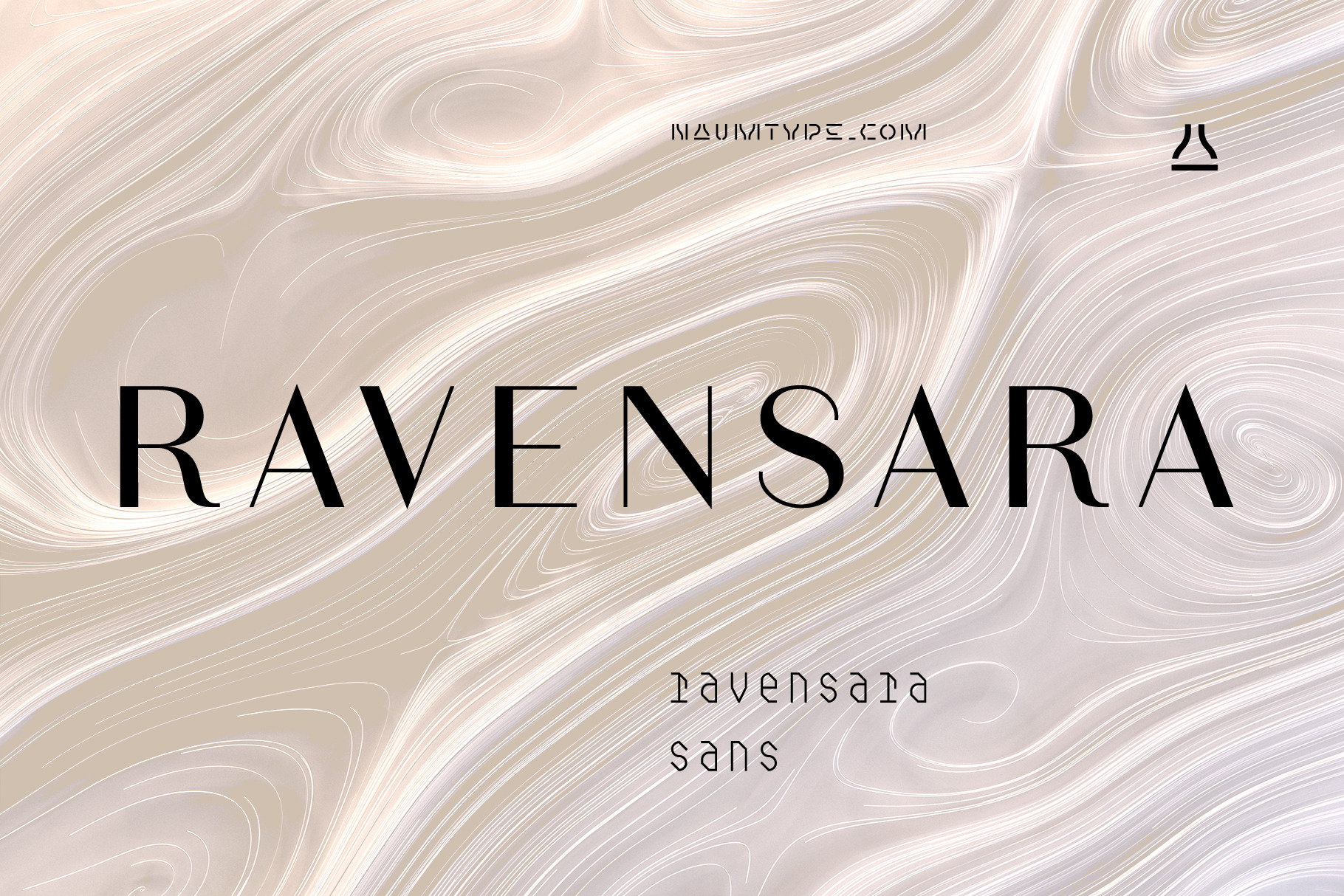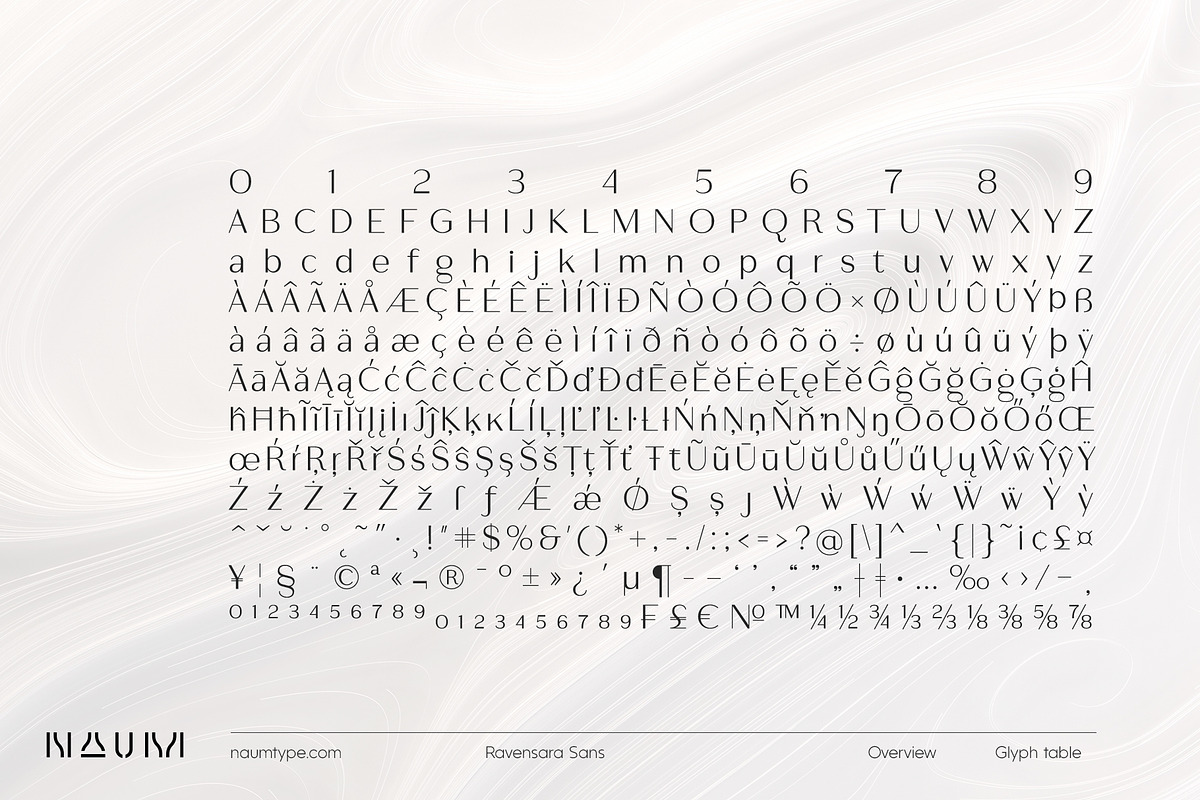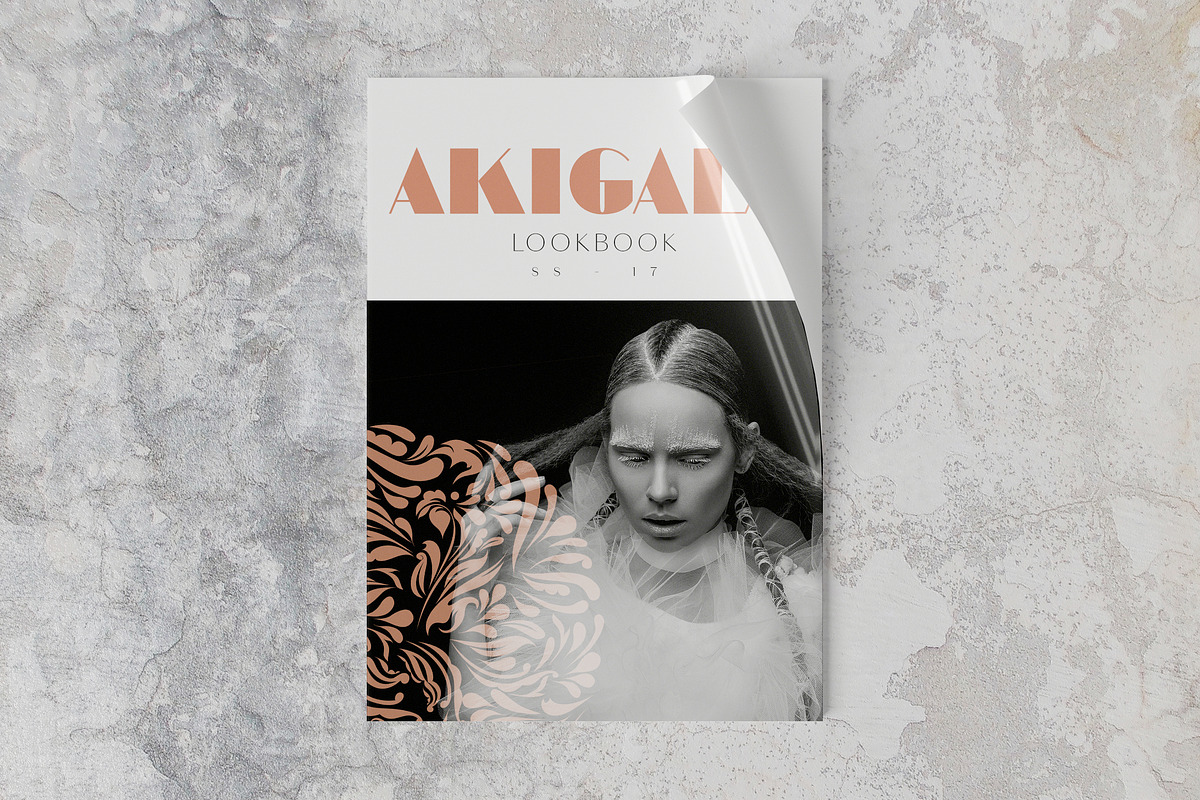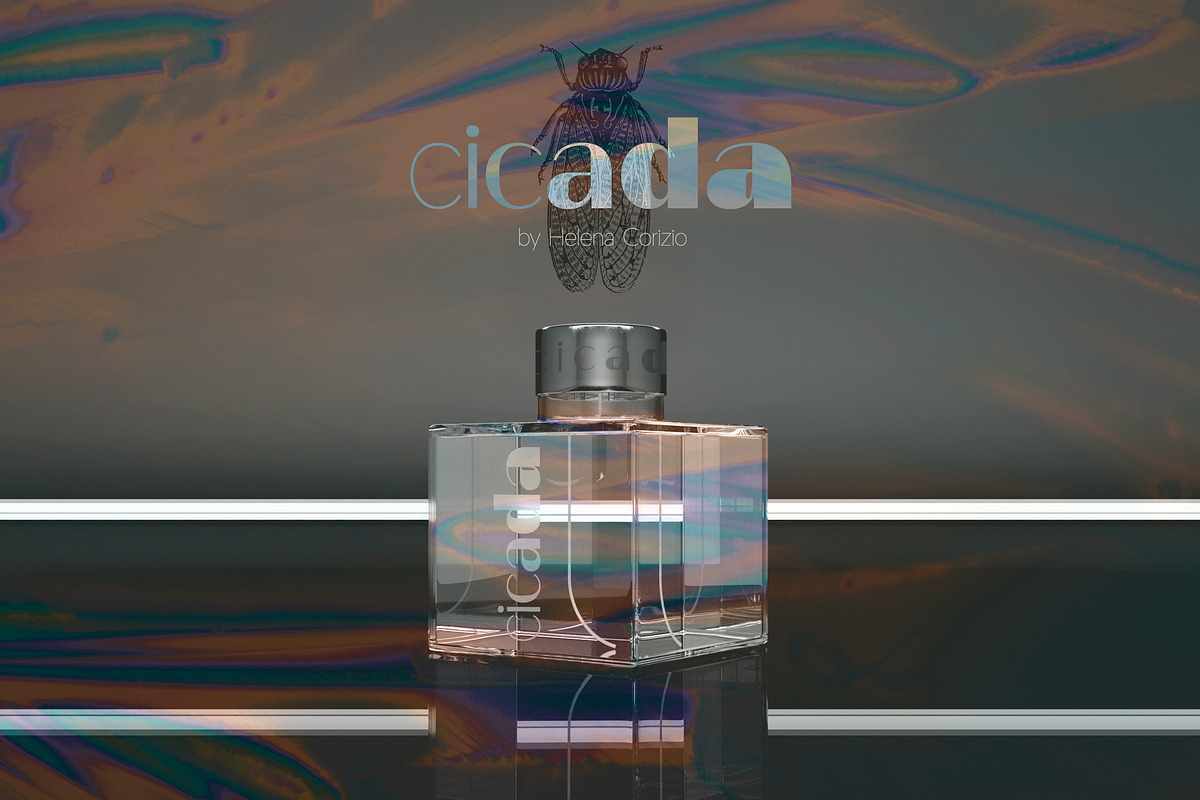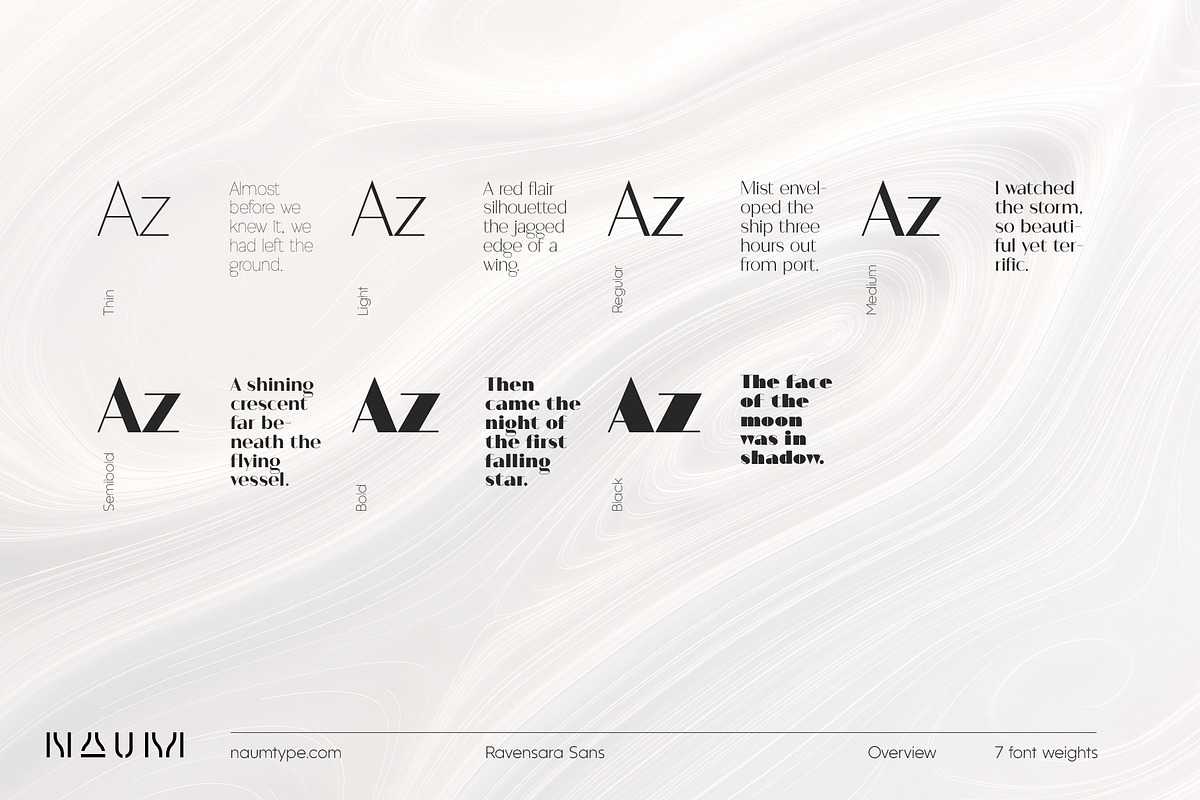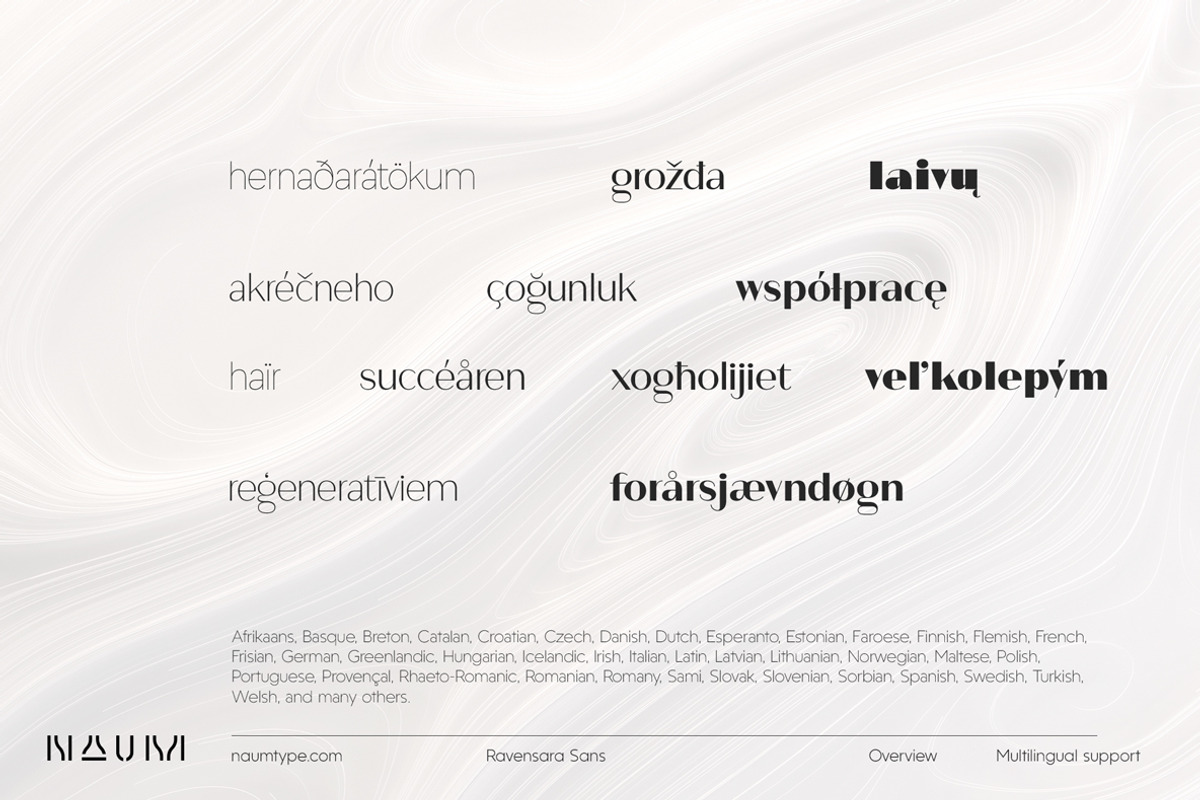
Ravensara Sans | 7 fonts
Ravensara Sans — fashionable, high-contrast humanist sans with a wide choice of weights.
Ravensara Sans is available in 7 weights, including Thin, Light, Regular, Medium, SemiBold, Bold and Black. Style of the font family originates in a classic Didone, but made a step to simplify and modernize some letter forms and make Didone feel more contemporary.
If you need to achieve classic Haute Couture look — Ravensara Sans is a great choice. It’s a perfect choice for fashion logos, headlines, short texts, magazines, due to its simplicity looks great in oversize typography, branding, identity, website design, album art, covers, posters, advertising, etc.
Languages Supported: Latin Extended A (Western and Central European languages)